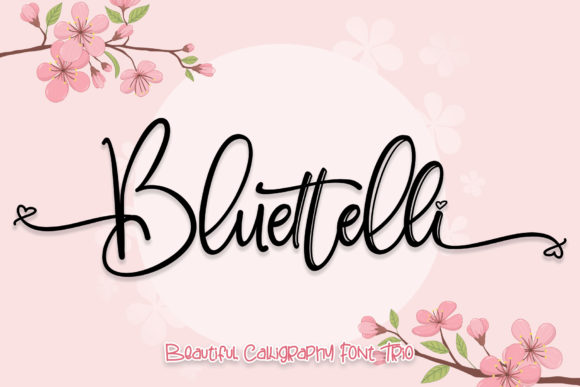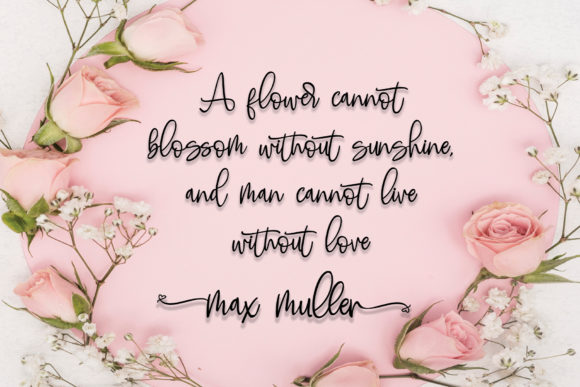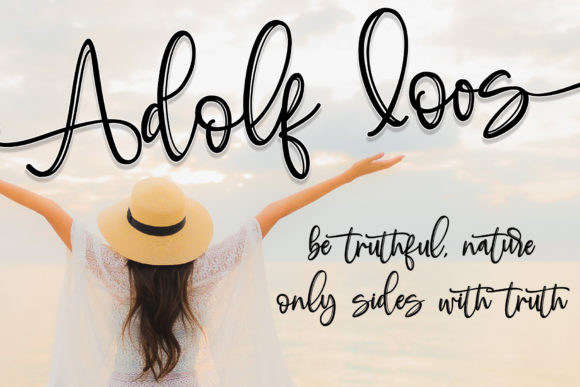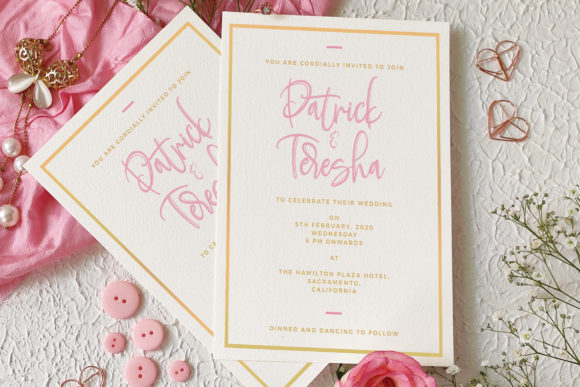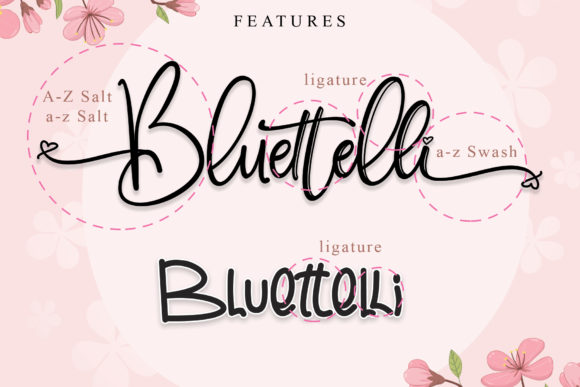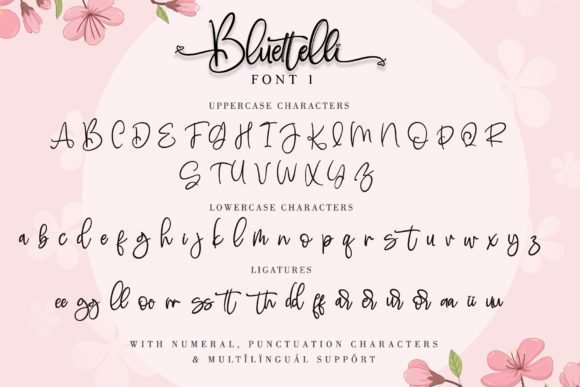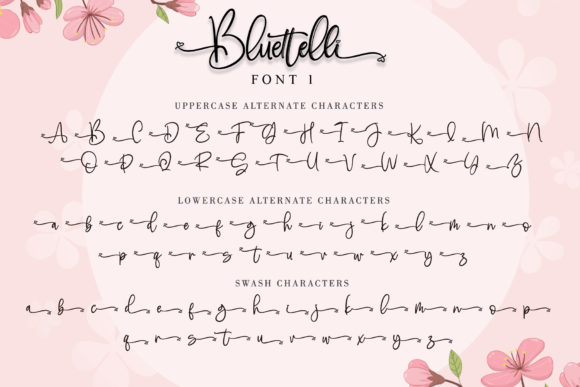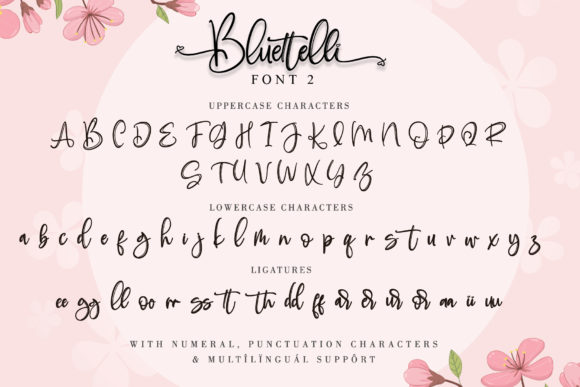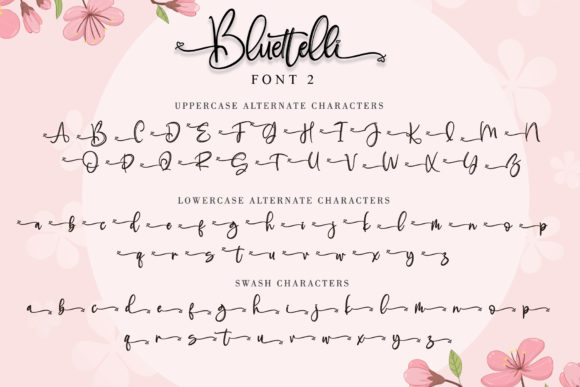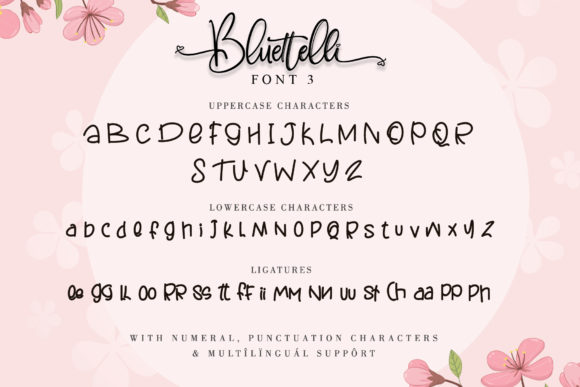
Bluettelli Font
Bluettelli is a fantastic font trio that combines three beautiful script calligraphy. Combining these three fonts on your next design will give a spectacular and friendly feel.